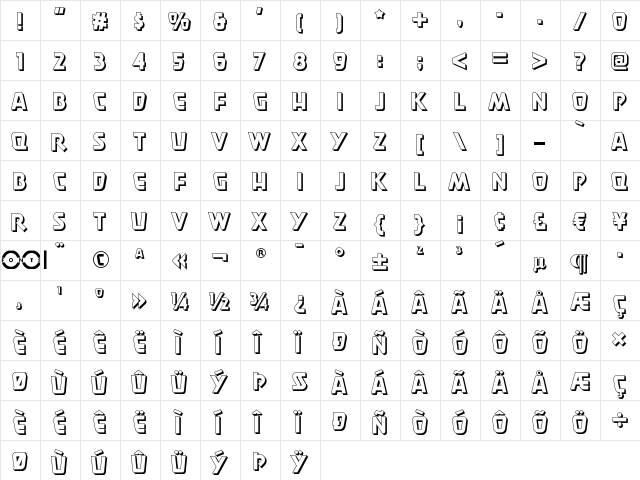
Burger Doodle NF Two Regular
| Foundry | Nick's Fonts |
| Designer | Nick Curtis |
Design Context for Burger Doodle NF Two Typeface
Burger Doodle NF Two is a composed and adaptable typeface that performs quietly and consistently across a wide range of design contexts.